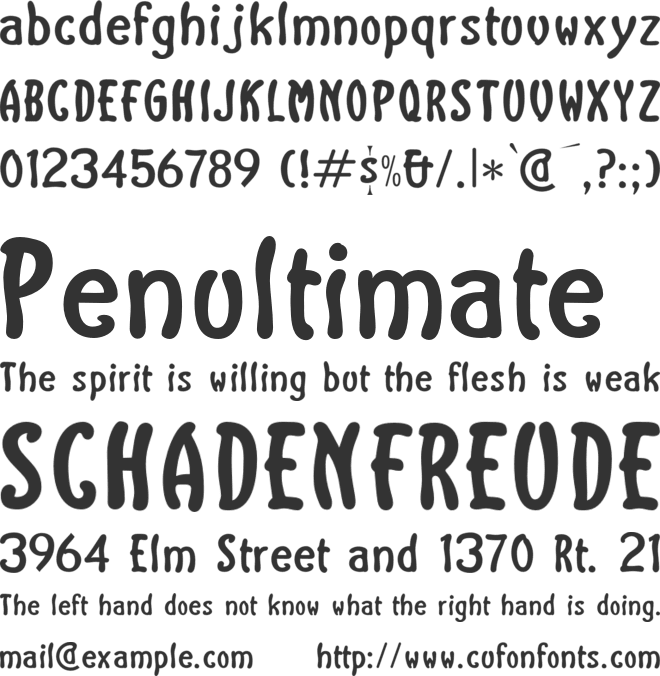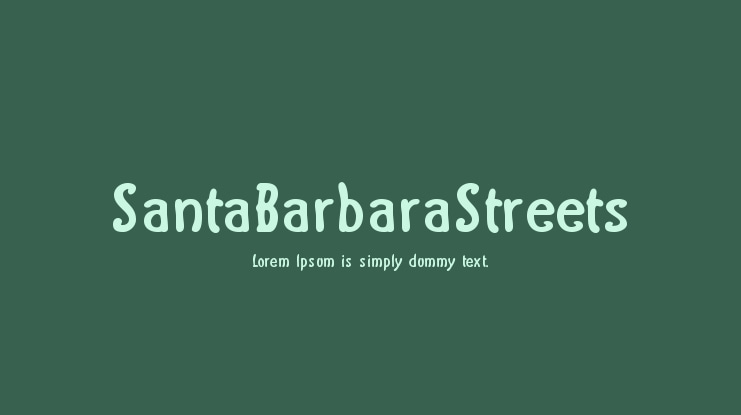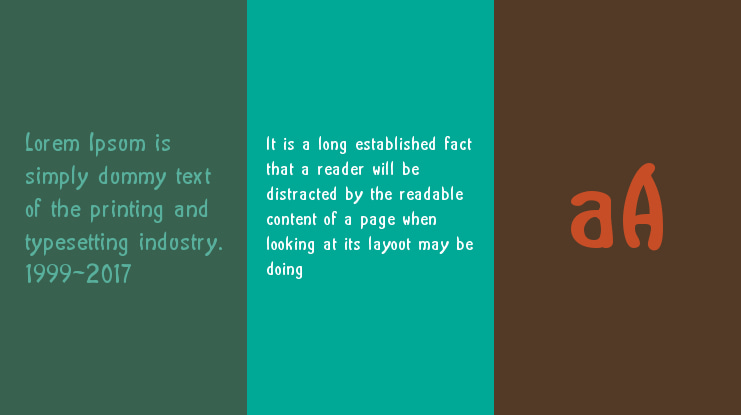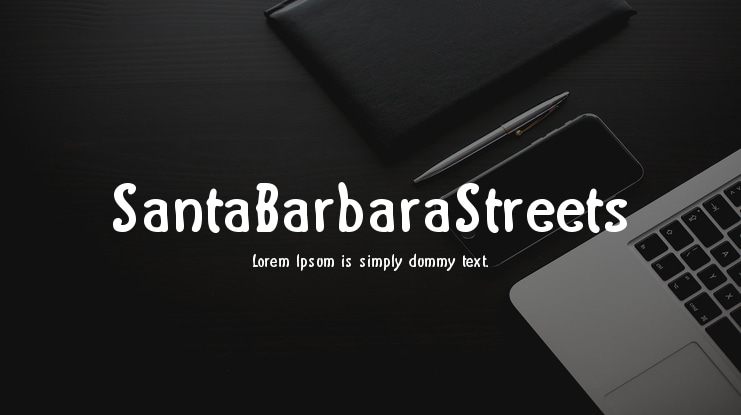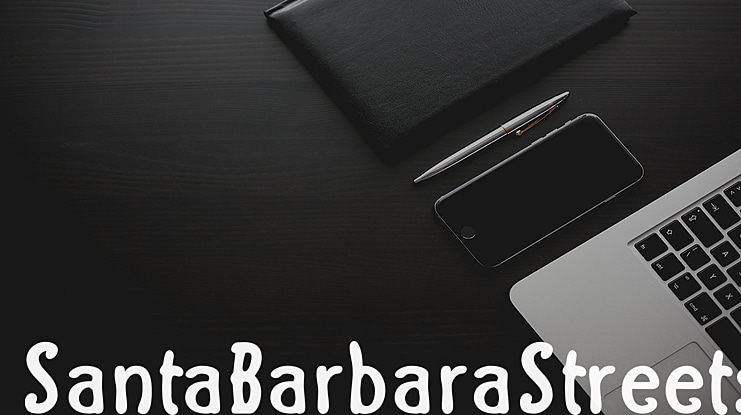
The city of Santa Barbara, Ca. has a distinctive font on its street signs; the city claims it is called "Mission" but it does not match any font with that name I have found. So I have created this font to match the street signs — and have added lower case letters of my own design for fun.